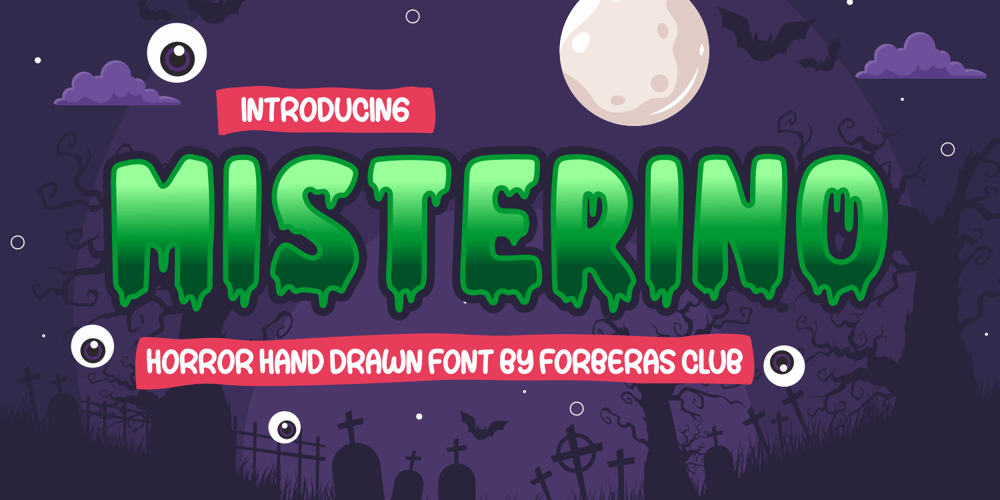
Misterino
Misterino font
Misterino Font Family was designed by ANGGI HERMAWAN and published by Forberas Club. Misterino contains 1 styles and family package options. Misterino font create for scary moment but still funny. This font create especially for Halloween.